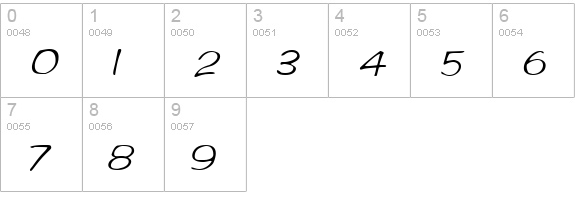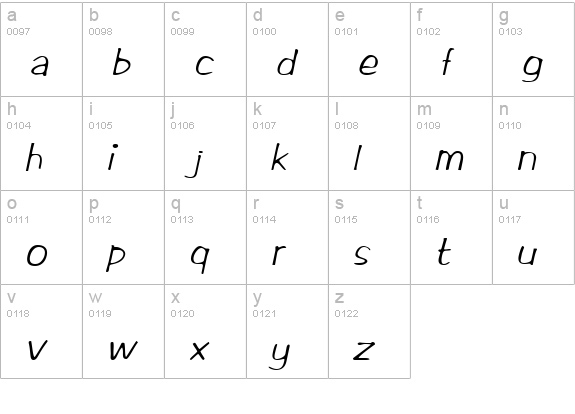
MarloCondensed Italic Font Details
MarloCondensed Italic is a distinctive, italic variant in the MarloCondensed typeface family \xE2\x80\x94 well suited to design and typography projects.
MarloCondensed Italic font is a sleek and elegant typeface that effortlessly combines modern sophistication with timeless appeal. Its condensed design adds a touch of refinement to any project, making it perfect for headlines, titles, and other attention-grabbing text. The italic style of MarloCondensed adds a sense of dynamism and movement to your designs, creating a visually striking aesthetic. Its slanted letterforms exude confidence and flair, making it an ideal choice for branding, advertising, and editorial design. With its carefully crafted curves and smooth line weights, MarloCondensed Italic font offers a harmonious balance between legibility and creativity. Each letter is meticulously designed to ensure optimal readability, even at smaller sizes. One of the greatest advantages of MarloCondensed Italic font is that it is freely available to download at FontsMarket.com. This means that you can effortlessly access and utilize this exceptional typeface for both personal and commercial projects without any cost. Whether you are a professional designer seeking to elevate your work or an individual looking to add a touch of sophistication to your personal projects, MarloCondensed Italic font is the perfect choice. Its versatility, elegance, and availability make it a valuable addition to any typographic toolkit.